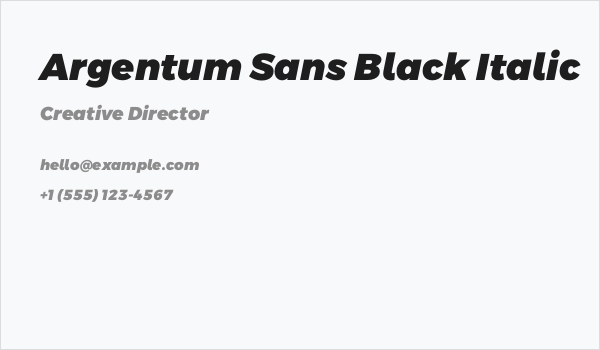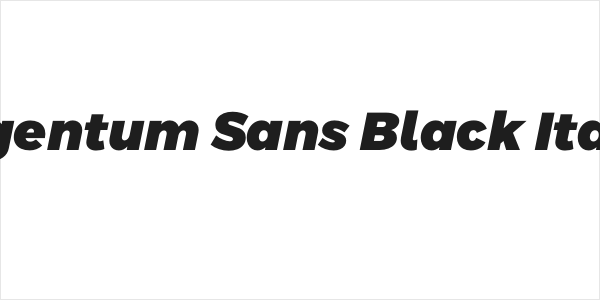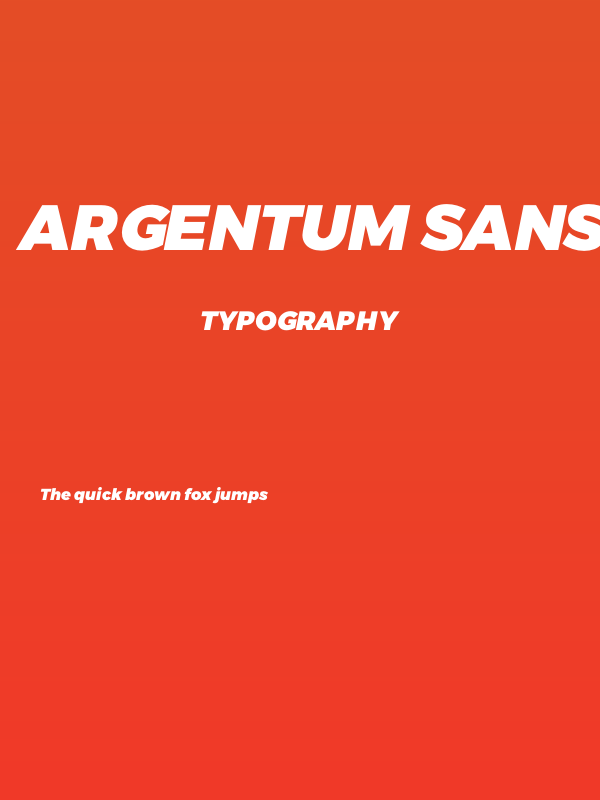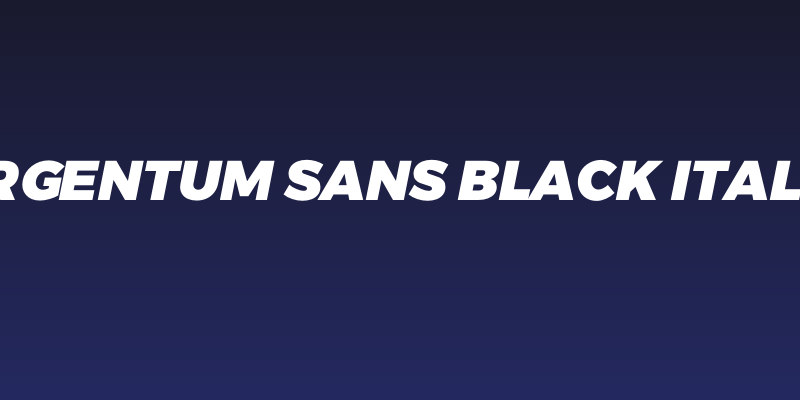
Argentum Sans Black Italic Font
Argentum Sans Black Italic Description
This font exhibits a bold and assertive style with a strong presence. The italicized form adds a dynamic and modern touch, making it suitable for attention-grabbing designs. The characters are well-defined with a consistent stroke width, contributing to a clean and professional appearance. The uppercase and lowercase letters maintain a harmonious balance, while the numerals and special characters are crafted to complement the overall aesthetic. The font's design is versatile, making it ideal for various applications that require a contemporary and impactful look.
| Use Case | Headlines, Logos, Advertising |
| Proposed Projects | Ideal for branding, advertising, headlines, and digital media where a strong and modern impression is desired. |